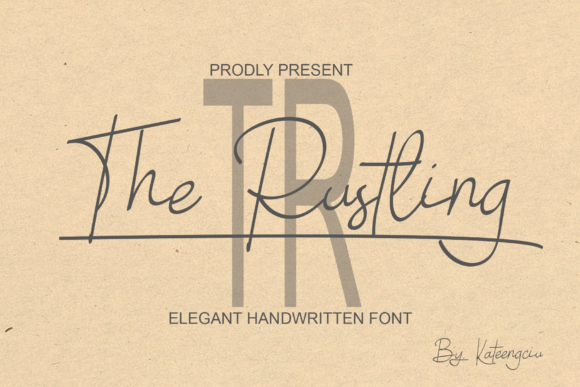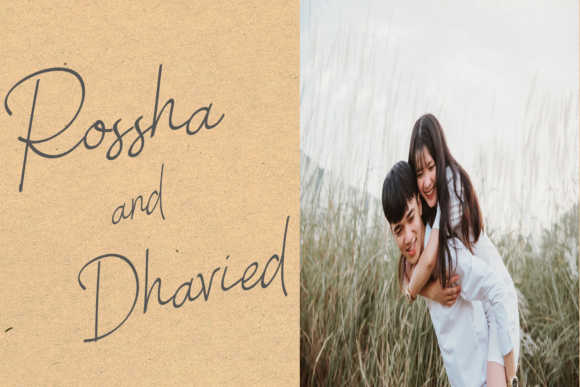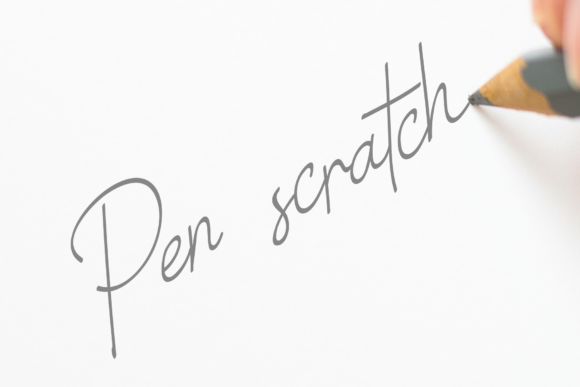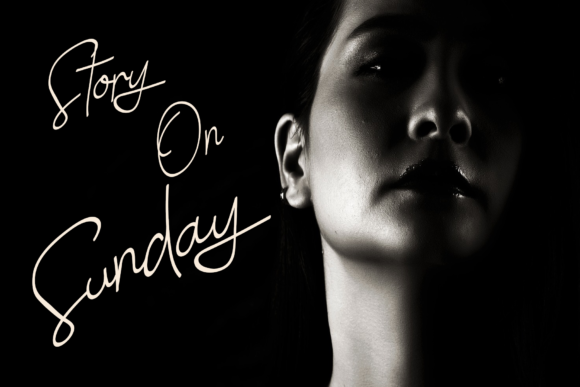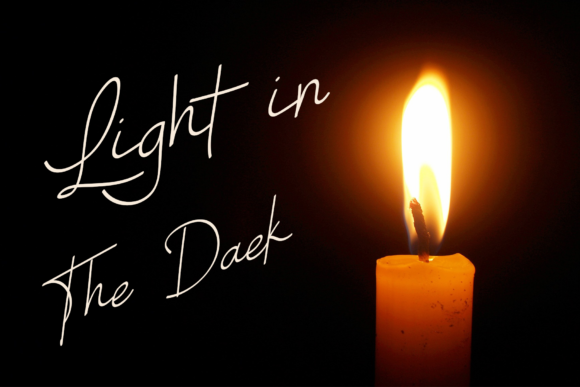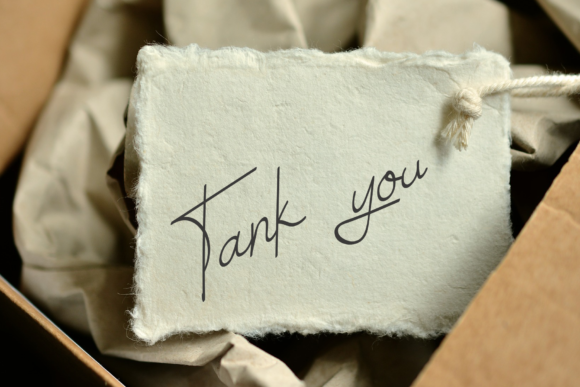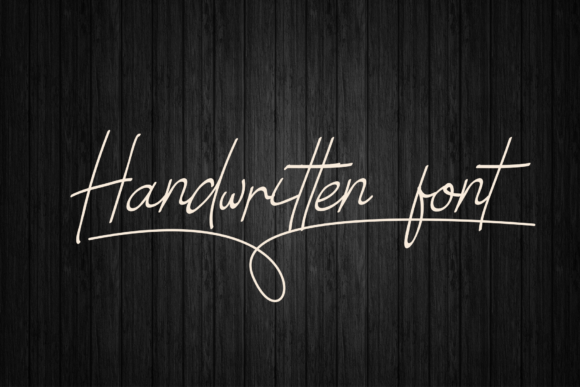
The Rustling Font
About The Rustling Font
The Rustling font, with its graceful and flowing script font, embodies a charming elegance that elevates any design it graces. Crafted with meticulous attention to detail, this handwritten typeface infuses projects with a sense of sophistication and romance.
At the heart of The Rustling font lies its exquisite script design, characterized by fluid strokes and delicate curves. Each letter exudes a sense of grace and beauty, creating a visually captivating arrangement that captivates the eye.
One of the defining features of The Rustling font is its versatility. Whether used for wedding invitations, love letters, or greeting cards, it effortlessly captures the essence of romance and adds a touch of whimsy to every project.
Moreover, The Rustling font evokes a sense of joy and warmth, making it perfect for conveying heartfelt messages and sentiments. Its delicate demeanor creates an inviting and intimate atmosphere, eliciting positive emotions from viewers.
In addition to its aesthetic appeal, The Rustling font is designed for ease of use. Its well-crafted letterforms ensure clear legibility, while its compatibility with design software makes it accessible to designers of all levels.
In summary, The Rustling font is a charming script typeface that infuses projects with elegance and romance. With its graceful style and versatile application, it serves as a timeless addition to any designer’s toolkit. Let The Rustling font be the perfect choice for adding a touch of beauty and sophistication to your next design endeavor, and watch as it brings your creative vision to life with effortless grace.